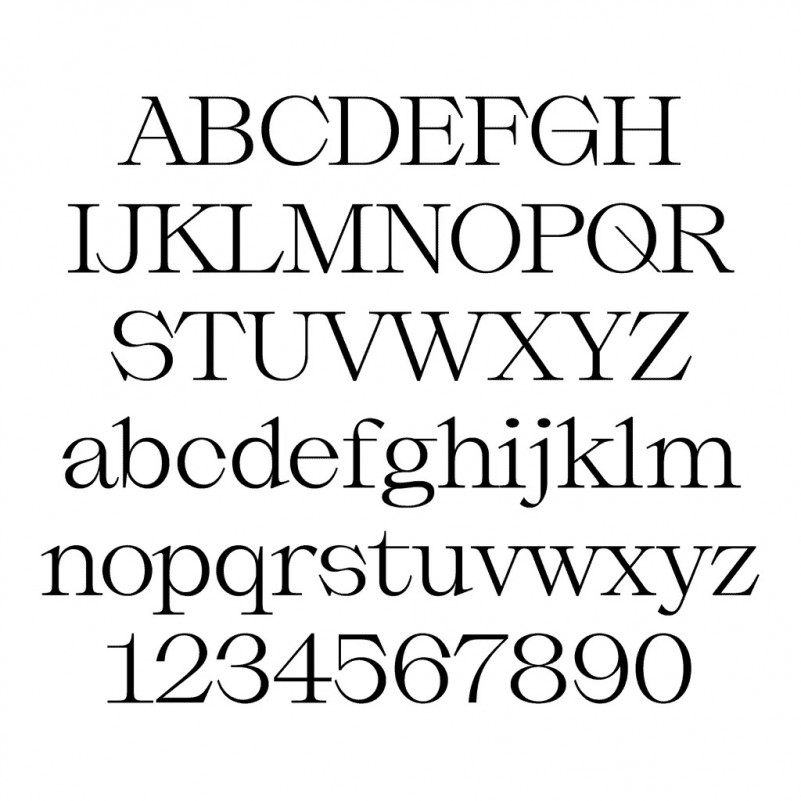
Slack Light Font
Say hello to Slack Serif Font is a contemporary serif typeface which features tight apertures and an elastic effect on the serifs. It simulates the movement of slackline webbing when you’re walking, running or balancing on it. Slack is curved, round, elegant and deceptively classicist, while being straight and edgy with its alternates. With 530+ glyphs and a wide range of stylistic sets, Slack is available in one Light weight.